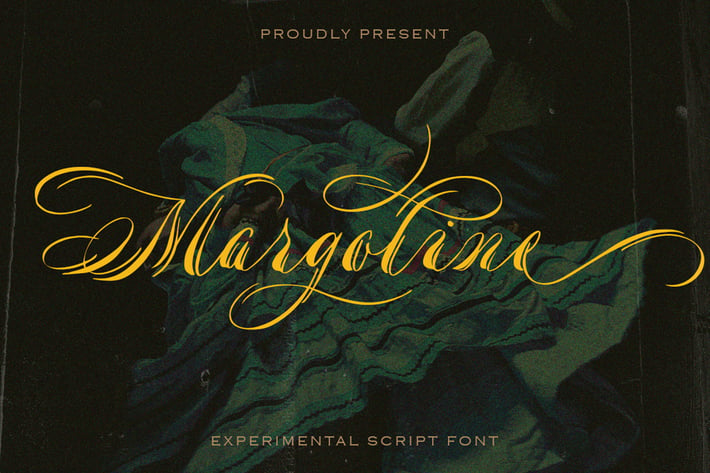
Margoline - script font
Introducing, Margoline script font. Margoline is a swash handwritten font that is perfect for branding, packaging, wedding invitation, card, etc.
+ uppercase & lowercase
+ numbers and punctuation
+ multilingual
+ alternates and ligatures
+ swash